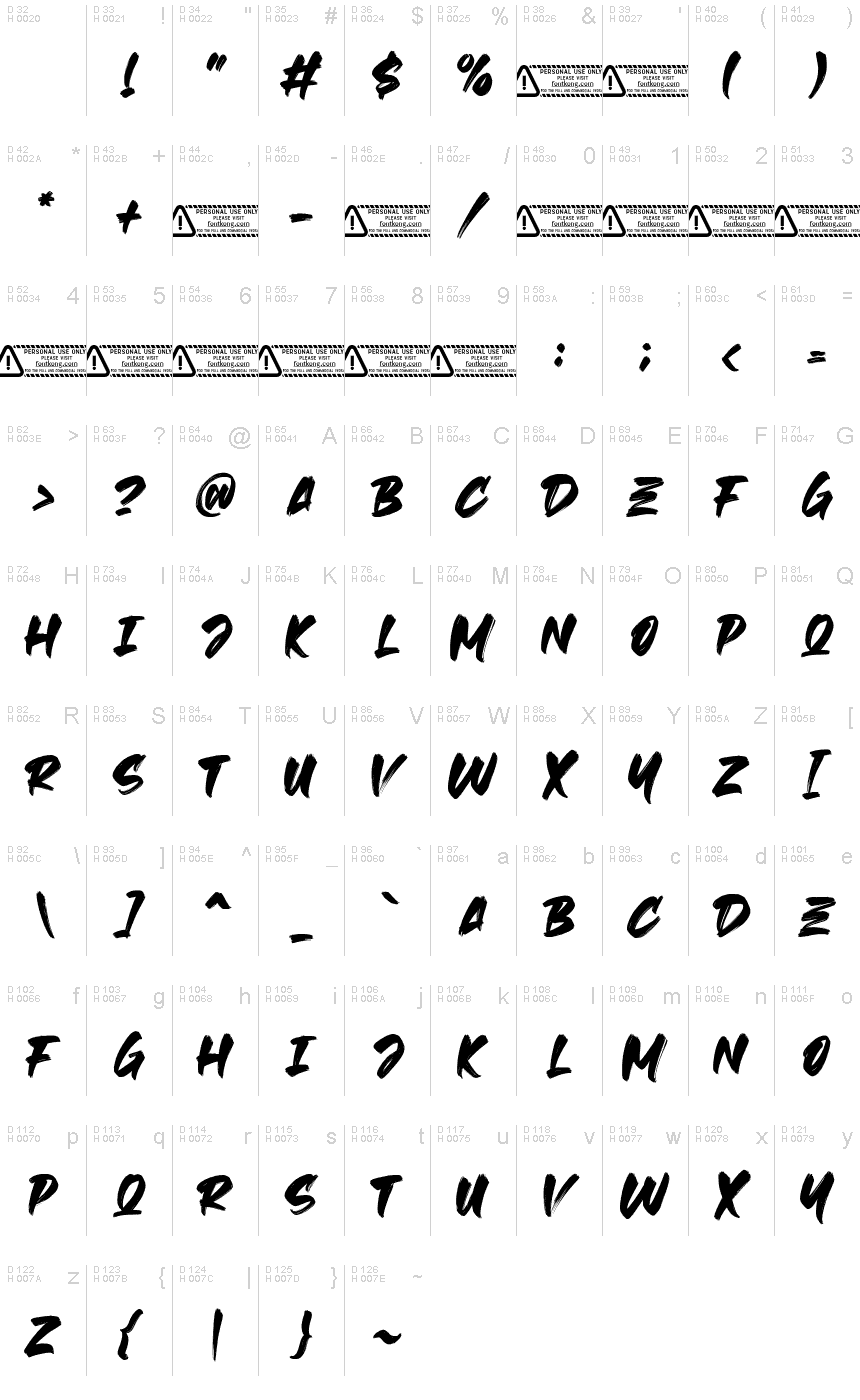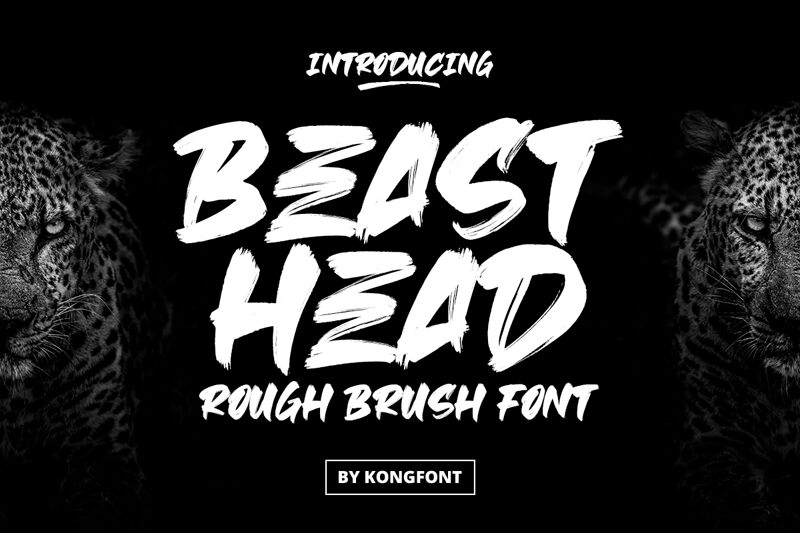
Beast Head
Beast Head, designed by Kong Font, is a dynamic and captivating rough brush font. With its bold weight, it exudes strength and power, making it perfect for projects that require a fearless approach. This versatile typeface adds an edgy touch to various design works such as album covers, sports apparel, tattoo designs, and branding materials for rock bands. Whether you're creating posters for rebellious events or designing logos that demand attention, Beast Head will leave a lasting impression with its untamed and rugged aesthetic. Embrace the wild side of typography with Beast Head!